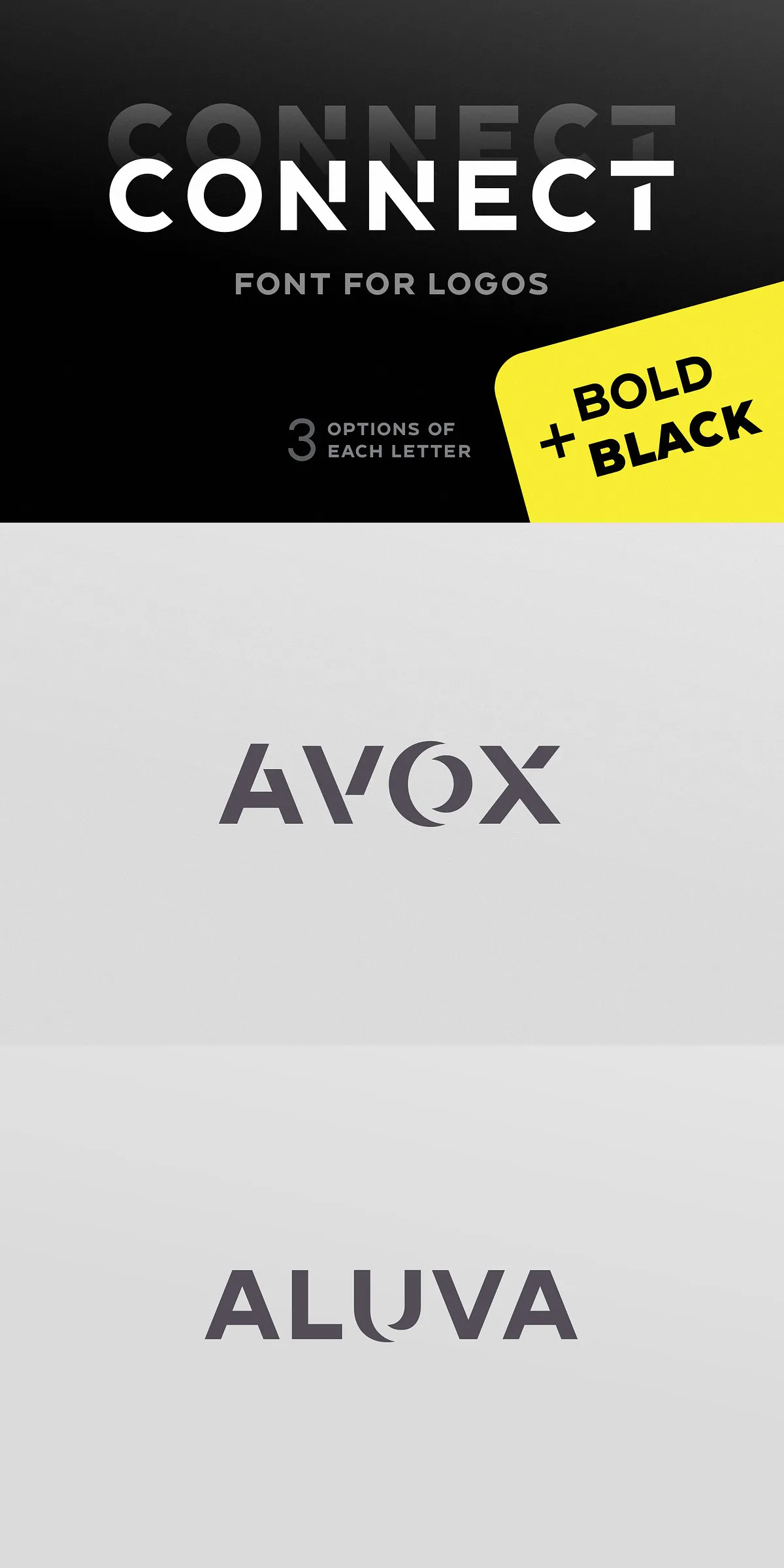
Eliminate clutter. Amplify impact. With RM Connect, you’re not just choosing a font—you’re embracing a philosophy of precision and purpose. Designed from the ground up for minimalist logos, powerful taglines, and high-impact titles, this typeface strips away the unnecessary and delivers clarity with strength. Whether you’re crafting a sleek startup identity, designing a premium product label, or building a visual language for a luxury brand, RM Connect gives you the tools to make every letter count—no more, no less.
Engineered for Clarity, Built for Impact
Minimalism isn’t about emptiness—it’s about intention. RM Connect captures that essence through restrained strokes, balanced spacing, and geometric elegance. Its clean, unadorned structure ensures maximum legibility across scales and mediums. This isn’t a trend—it’s a timeless approach to typography that works across print, digital interfaces, and branding systems.
- Two Dynamic Weights: RM Connect Bold and Black—choose the precision of bold for subtlety or the commanding presence of Black for maximum authority.
- Strategic Letterform Simplicity: Every curve, line, and intersection is crafted for visual harmony without compromise.
- Perfect for Wordmarks: Ideal for monograms, brand names, and short-form identities where space is limited and impact is essential.
- High-Contrast Compatibility: Works flawlessly in both dark and light environments, from black text on white to white text on dark backgrounds.
Unlock Creative Power with Alternate Characters
Beyond its clean baseline, RM Connect offers a powerful feature: alternate glyphs. These subtle variations let you emphasize specific letters in your text, creating visual rhythm and hierarchy—without sacrificing minimalism. Use them to highlight initials, key brand identifiers, or standout words in headlines and taglines. This isn’t just a font—it’s a control system for visual expression.
For example:
- Highlight the first letter of a brand name with a refined alternate to create a memorable anchor.
- Use a stylized ‘O’ or ‘R’ as a signature element in a logo or social media avatar.
- Create variation in a tagline by replacing standard characters with elegant alternatives—perfect for editorial or campaign design.
Applications Where RM Connect Shines
RM Connect isn’t just suitable for minimalism—it thrives in it. Here’s where it delivers the most value:
- Corporate & Startup Logos: Create clean, memorable wordmarks that communicate sophistication and focus.
- Brand Taglines & Slogans: Use bold weights and alternates to reinforce messaging with visual consistency.
- Product Packaging: Add premium presence to labels, boxes, and inserts without overwhelming the design.
- Digital UI & Web Headers: Ideal for clean navigation labels, landing page titles, and app interface text.
- Invitations & Editorial Layouts: Provide elegant structure to formal or high-end printed materials.
Future-Proof Design, Zero Compromise
RM Connect is built for the long term. Its balanced design ensures it will remain relevant across evolving design trends. The lack of ornamentation means it won’t date—only grow more iconic. And with its two core weights and robust alternate set, it’s already powerful enough for most professional use cases. Think of it as a foundational tool that scales with your creativity.
Get Ahead with a Font That Speaks Without Noise
In a world flooded with visual clutter, RM Connect cuts through. It doesn’t shout—it asserts. It doesn’t distract—it directs attention. With its clean lines and bold presence, it transforms ordinary text into meaningful, memorable content.
Whether you’re a brand designer, creative director, or independent artist, RM Connect gives you the clarity to craft with confidence. Don’t settle for noisy fonts that demand attention through volume. Let RM Connect lead with presence, elegance, and silent strength.